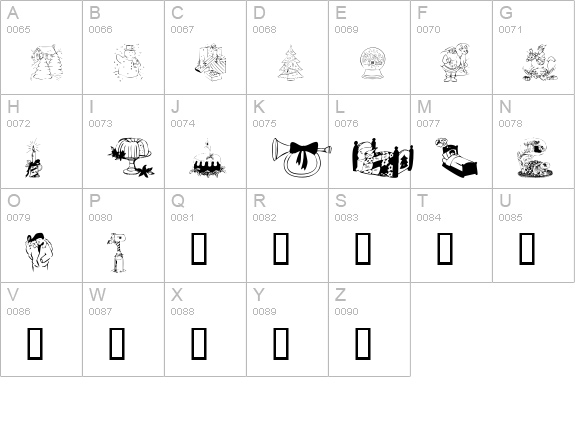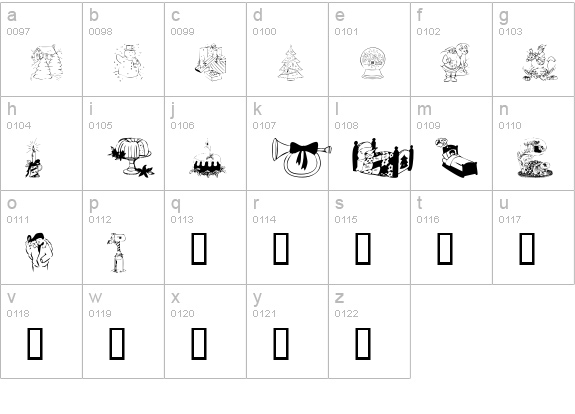
KR Christmas 2002 Dings 1 Font Details
The KR Christmas 2002 Dings 1 font is a whimsical and festive collection of holiday-themed dingbat characters perfect for adding a touch of Christmas cheer to your designs. This font features a variety of fun and festive icons such as snowflakes, Christmas trees, ornaments, and more, making it perfect for creating holiday cards, invitations, and decorations. Best of all, this font is available for free download at FontsMarket.com, allowing you to easily add a festive touch to your projects without breaking the bank. With its playful and charming designs, the KR Christmas 2002 Dings 1 font is sure to bring joy and merriment to your holiday creations. Download it today and start spreading the Christmas spirit with every design you create!